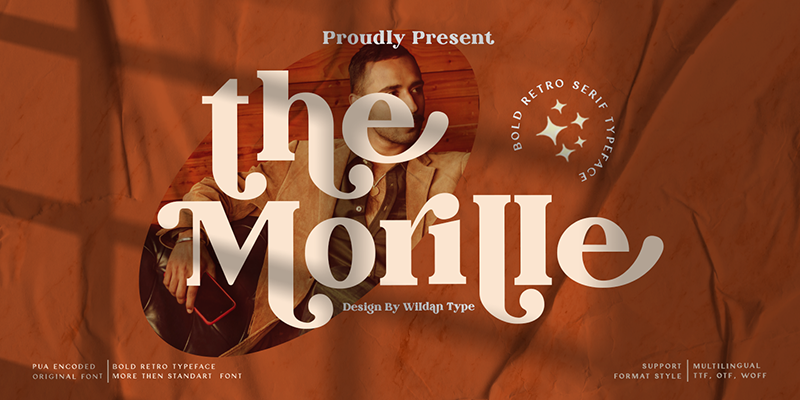
The Morille is a retro serif font style, suitable for all of your product. This is only personal use. if you need full version and Get more of my product, come to this link; https://www.creativefabrica.com/designer/wildancarbon https://fontbundles.net/wildan-carbon-studio https://www.myfonts.com/person/wildan-carbon/ If you have any questions. This is my email: wildantype@gmail.com |